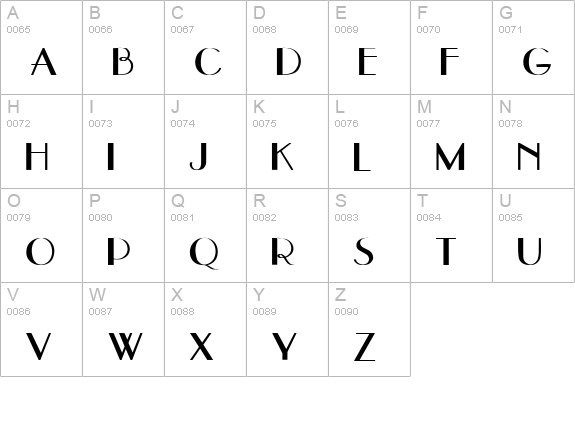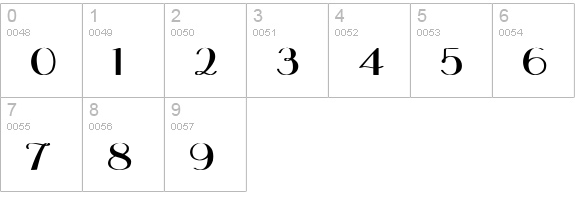
East Side Bold Font Details
East Side Bold is a strong, high-contrast variant in the East typeface family \xE2\x80\x94 well suited to headlines, attention-grabbing titles, and strong calls-to-action.
East Side Bold font is a captivating and dynamic typeface that exudes an air of confidence and modernity. Its bold strokes and strong letterforms make a powerful statement, perfect for grabbing attention and leaving a lasting impression. With its sleek and sophisticated design, East Side Bold font is versatile and suitable for a wide range of creative projects. Whether it's designing eye-catching logos, crafting impactful headlines, or creating visually stunning posters, this font will elevate your work to new heights. But what makes East Side Bold font even more appealing is that it is available for free download at FontsMarket.com. Yes, you read that right - this incredible font can be yours without spending a dime. FontsMarket.com offers a vast collection of fonts, and East Side Bold font is just one of the many gems waiting to be discovered. So why wait? Take advantage of this amazing opportunity to enhance your designs with East Side Bold font. Download it for free at FontsMarket.com and unleash your creativity like never before.